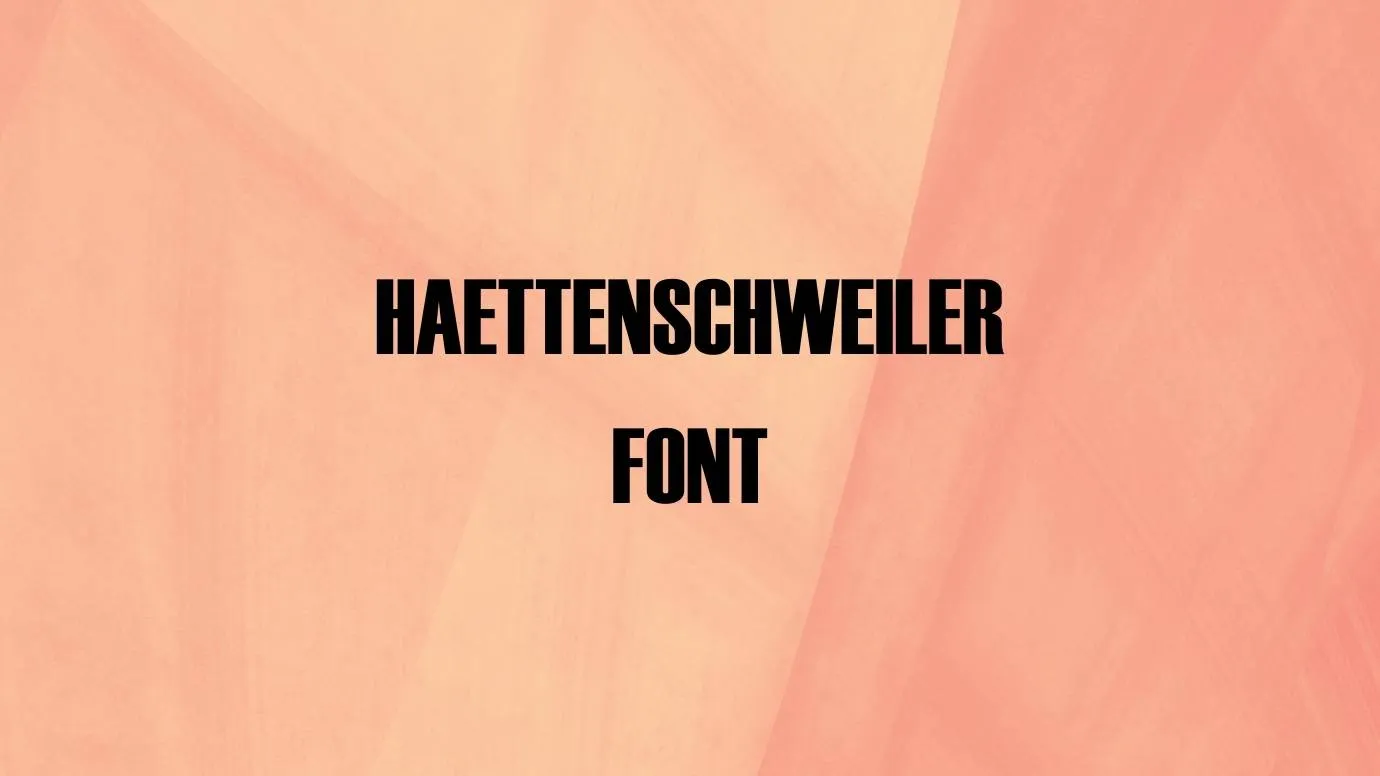
Haettenschweiler Font Family steps right out of the bold and brash grotesque sans serif family, taking the spotlight for headlines and display text. It’s a snug, closely-knit style with an unmistakable industrial vibe.
This font that is similar to Blackpink font provides 654 glyphs with 2048 units per em along with massive language supports and many other interesting characters including Latin-Extended A, all case letterings, punctuations, numbers, and many special characters.
Haettenschweiler Font Family
NameHaettenschweiler Font
DesignerWalter Haettenschweiler
StyleSans serif
Date Released1954